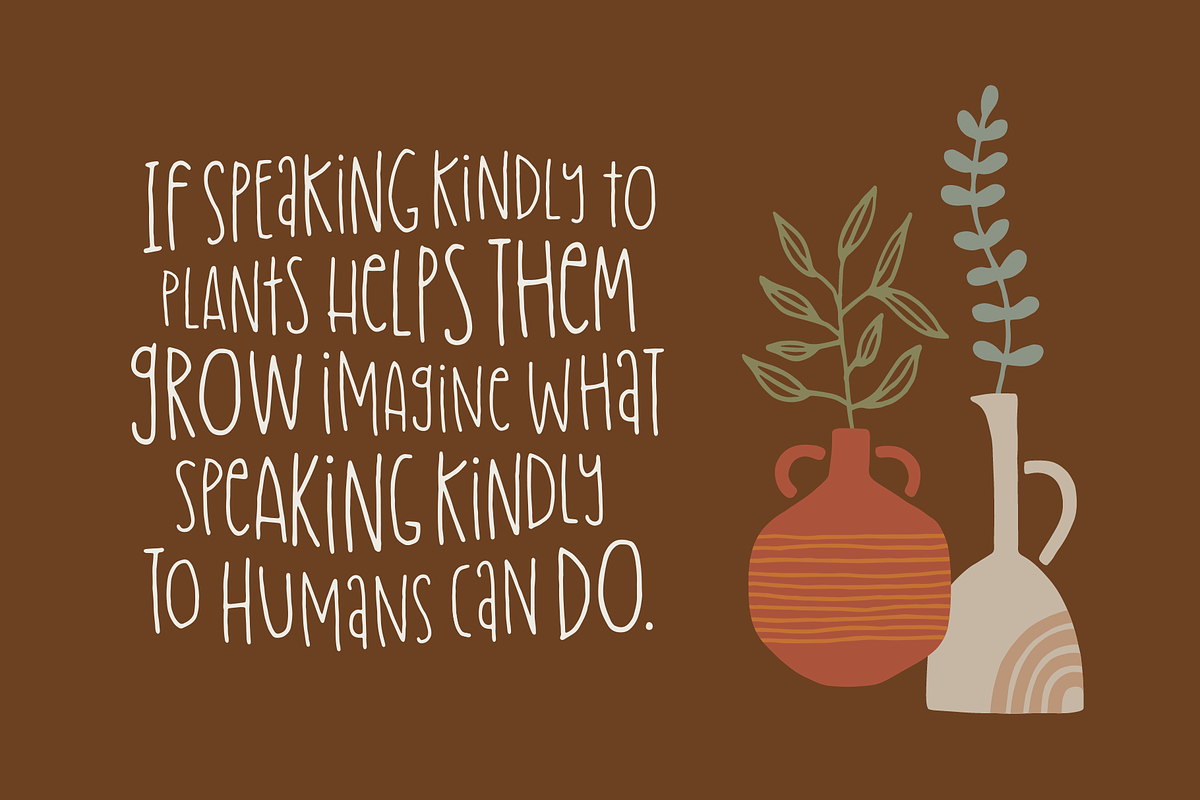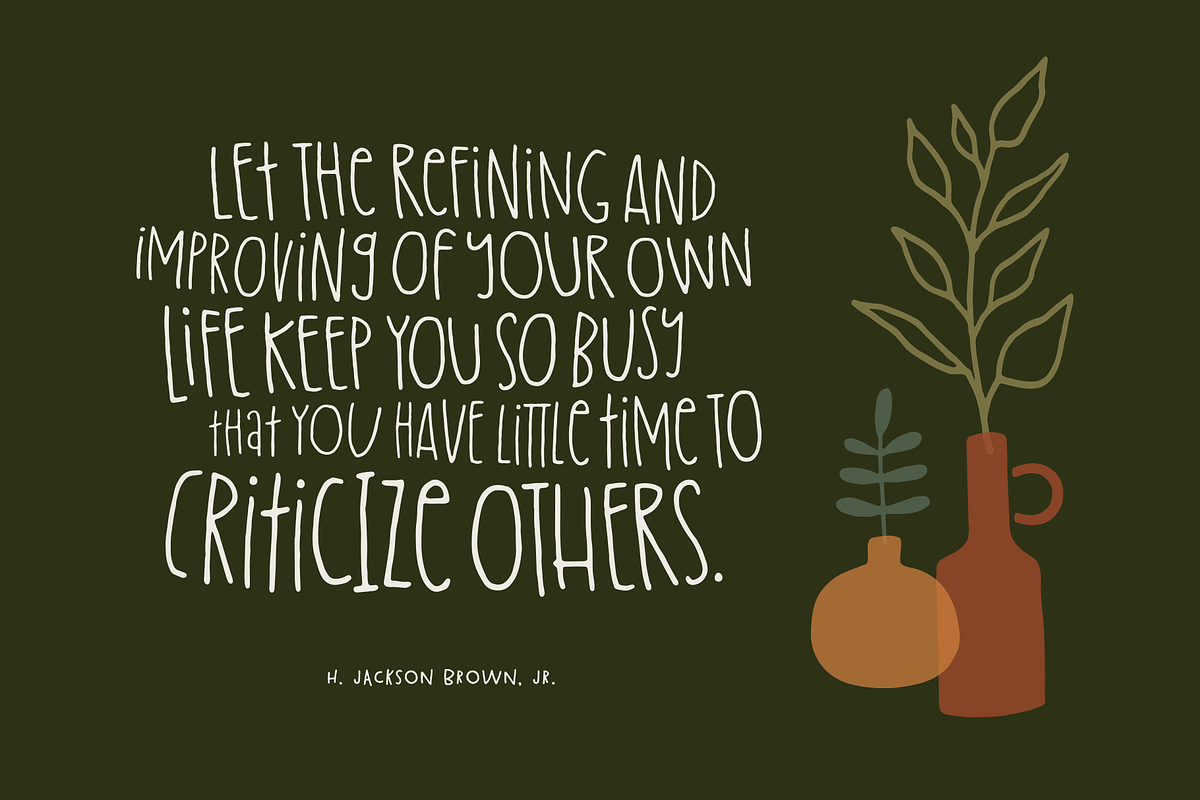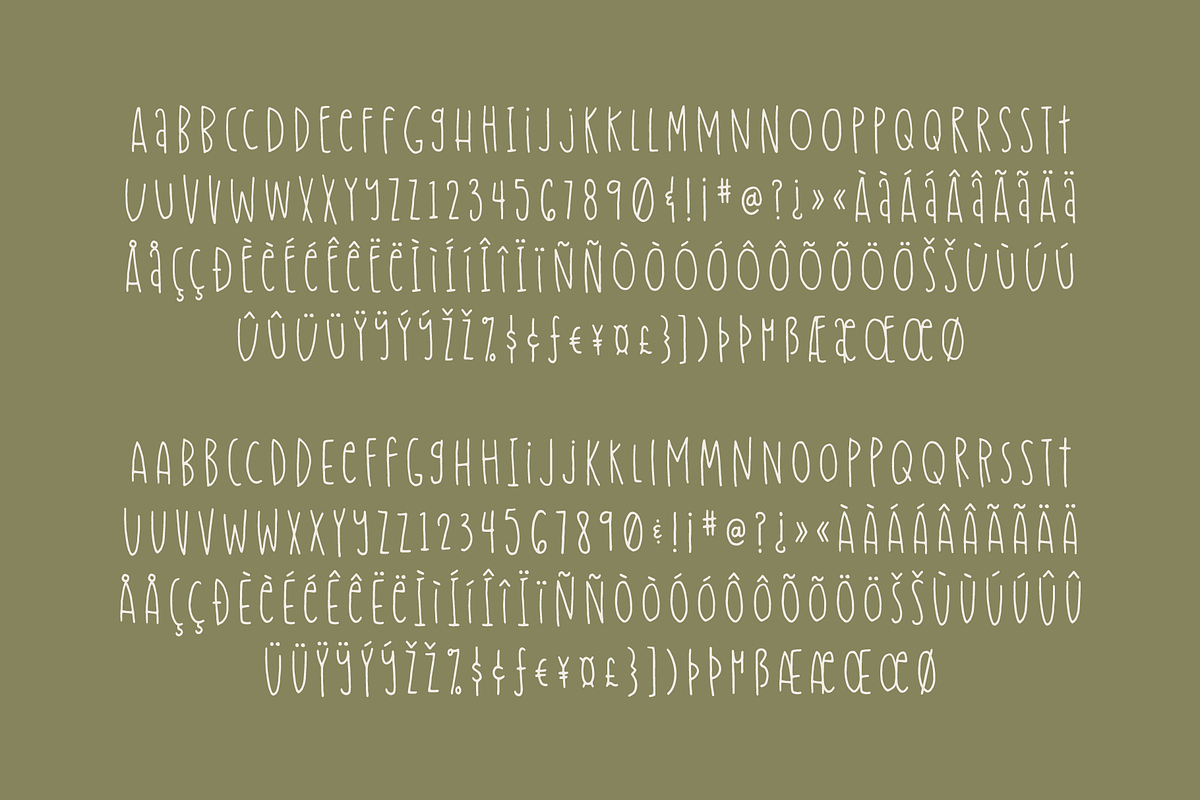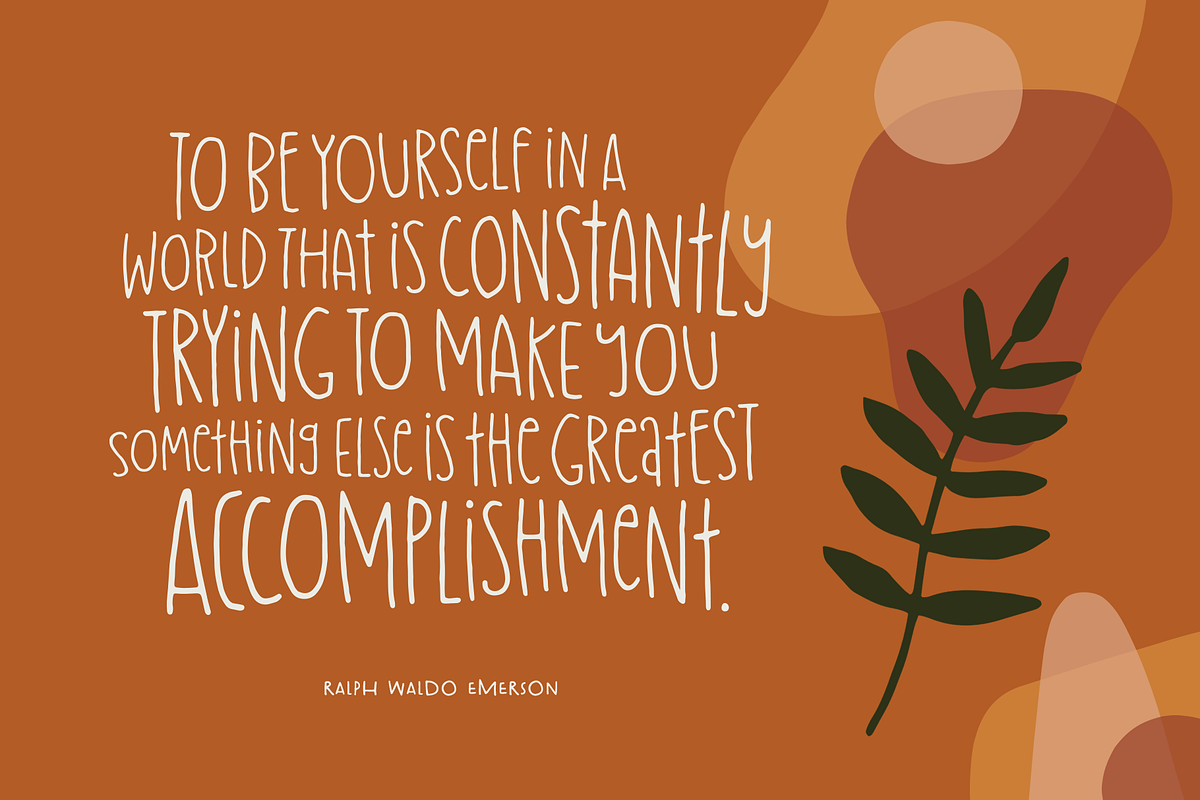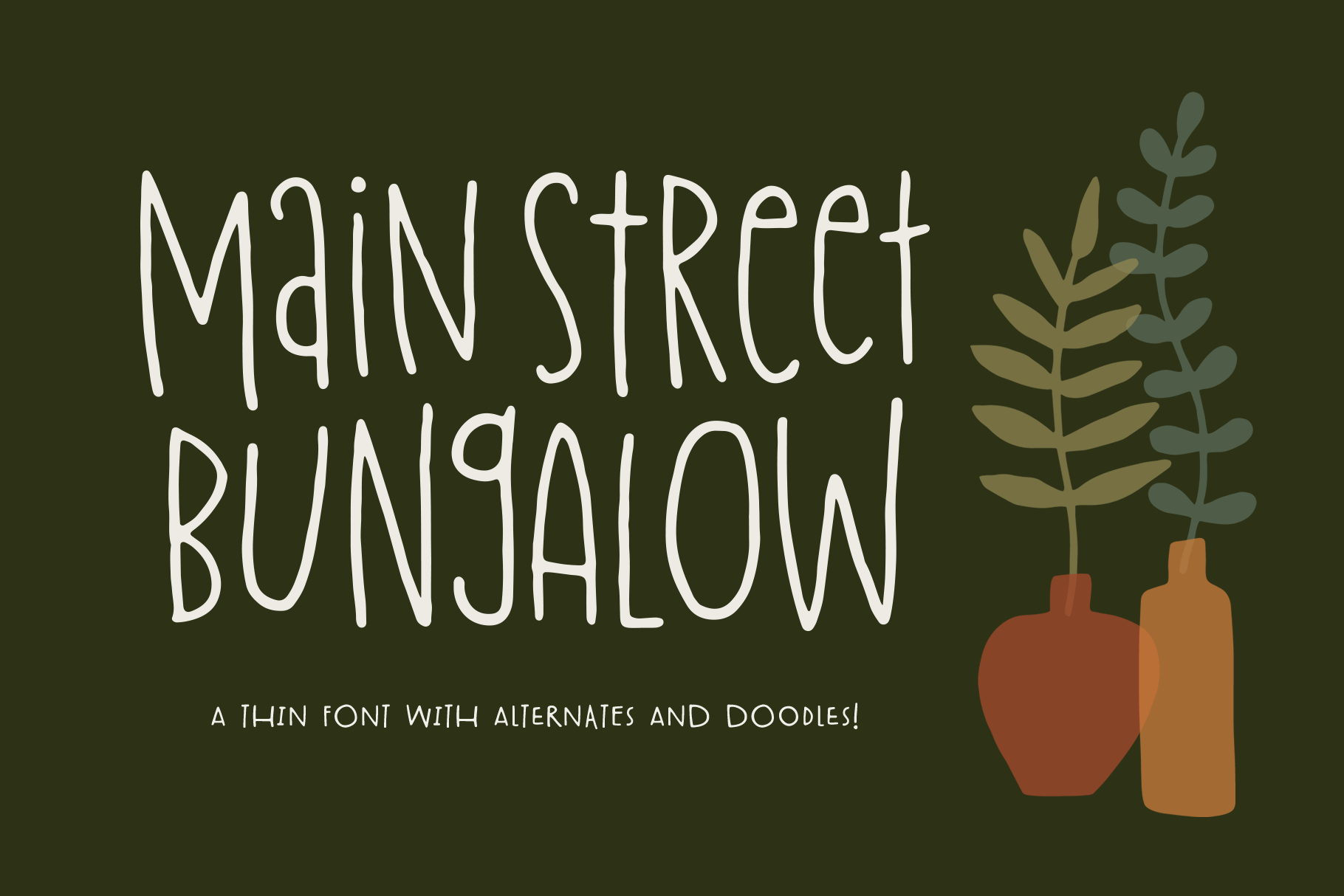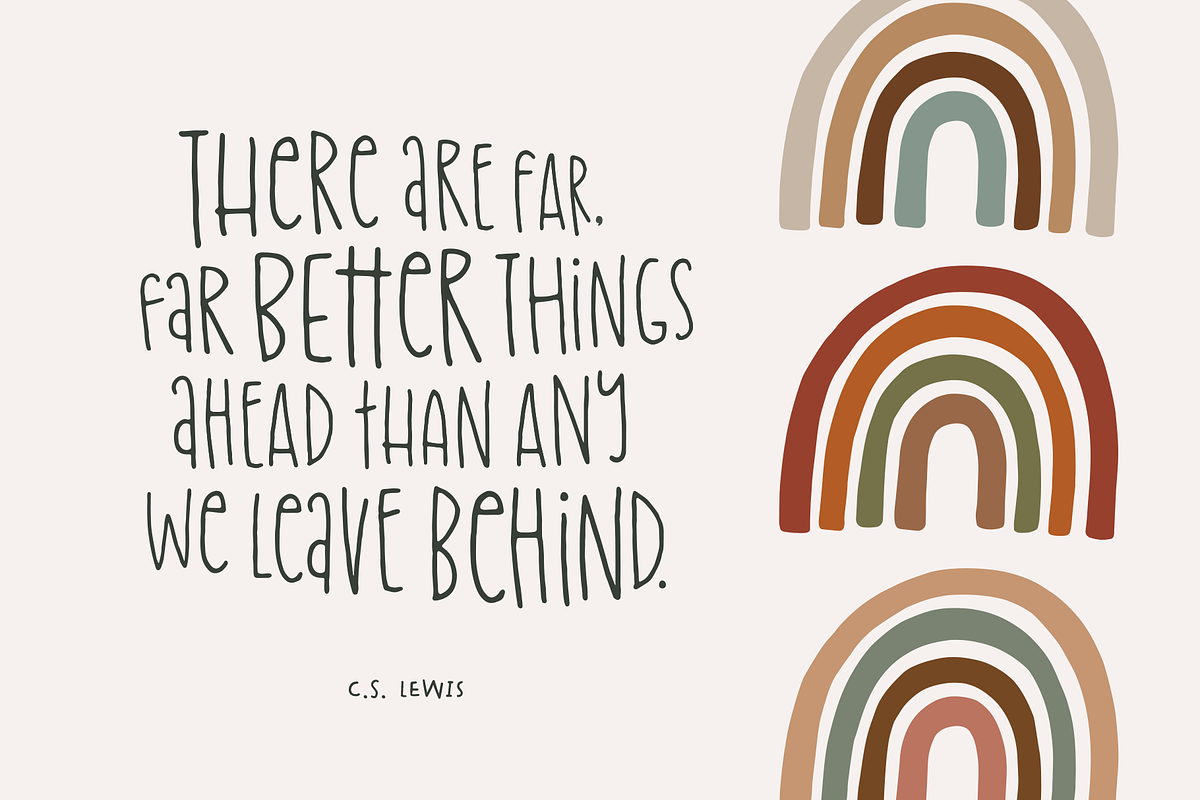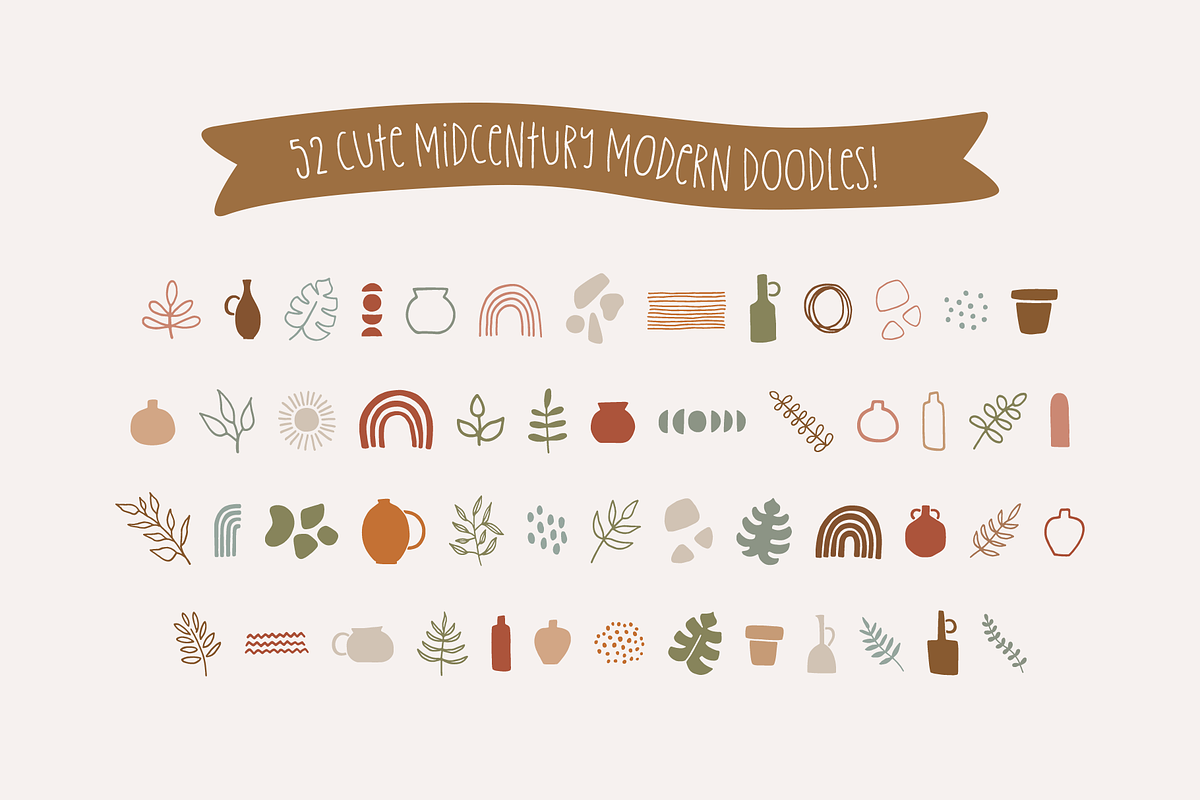
Main Street Bungalow Font
Main Street Bungalow is a thin, condensed font that comes with an alternate set of letters to give your designs a hand-drawn look. Bonus freebie includes 52 mid-century style doodles that can be accessed using uppercase and lowercase letters with the Main St Bungalow Doodles font.
- 52 bonus doodles!